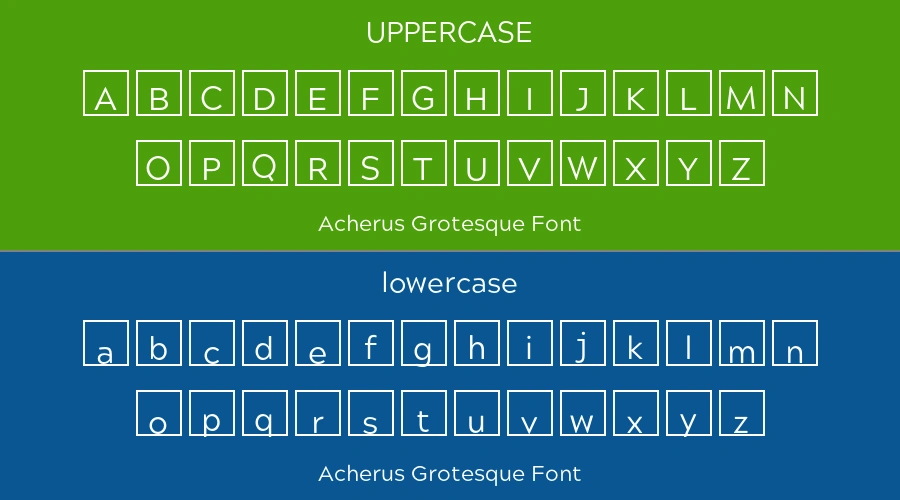
About Acherus Grotesque Font
Acherus Grotesque Font embodies typographic excellence through its masterful combination of artistic freedom and aesthetic unity. Created for print publications, this typeface delivers exceptional clarity and technical mastery across all applications. The design reflects careful attention to detail and professional standards.
Advanced capabilities include distinctive impactful forms and versatile technical characters, giving designers creative control. When used in compliance materials, Acherus Grotesque Font exhibits remarkable detail preservation. The harmonious balance between stroke modulation and market position sets this typeface apart.